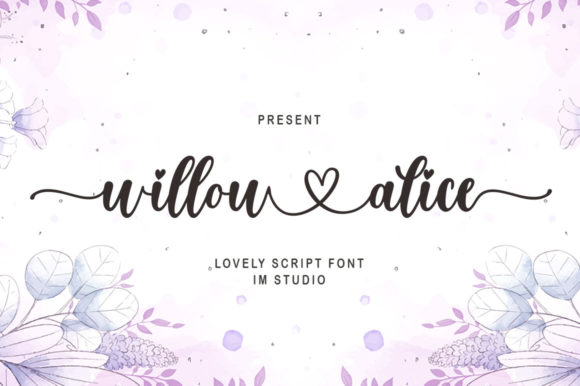
Journey into the world of elegance and sophistication with Willow Alice Font, a captivating and alluring script font that will transform your creative endeavors into masterpieces. Bask in the beauty of its meticulously crafted curves, each stroke exuding a timeless charm that will leave a lasting impression.
Willow Alice is more than just a font; it's an artistic expression that adds a touch of class and refinement to every design. Its graceful lines evoke a sense of nostalgia, whisking you away to a bygone era of grace and elegance.
Envision your logos, branding, and invitations adorned with the exquisite artistry of Willow Alice. Its effortless flow adds a touch of personality, ensuring that your designs stand out from the crowd. Let Willow Alice be your creative companion, guiding you towards crafting timeless designs that resonate with your audience.
With Willow Alice, your social media posts will radiate a captivating charm, drawing attention and sparking engagement. Its elegant aesthetic is the perfect canvas for expressing your thoughts and ideas, transforming your online presence into a visual feast.
Willow Alice is not just another font; it's a gateway to limitless creative possibilities. Its versatility knows no bounds, adapting seamlessly to a myriad of design projects. Whether you're a seasoned designer or just starting out, Willow Alice is your perfect partner, empowering you to create designs that leave a lasting impact.
Embrace the allure of Willow Alice Font and embark on a creative journey that will redefine your design aesthetic. Let its beauty and grace elevate your projects to new heights, captivating your audience and leaving them in awe.